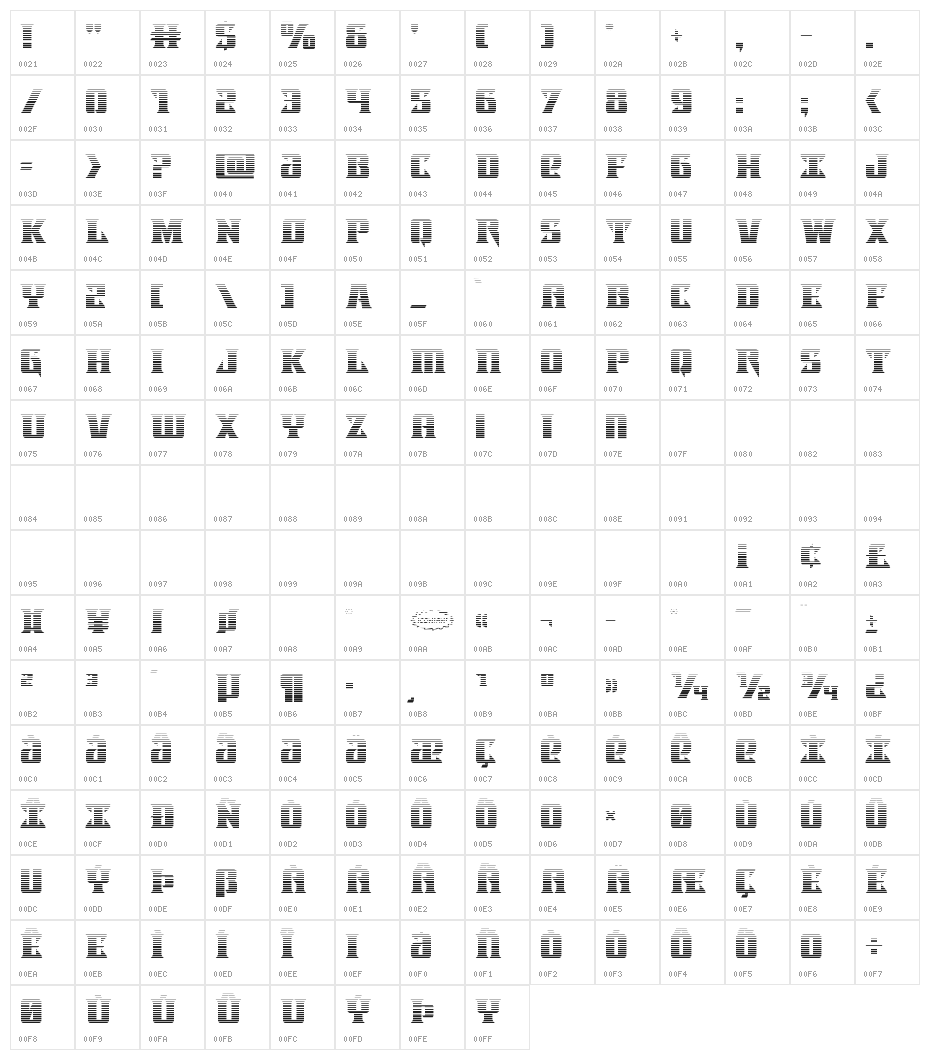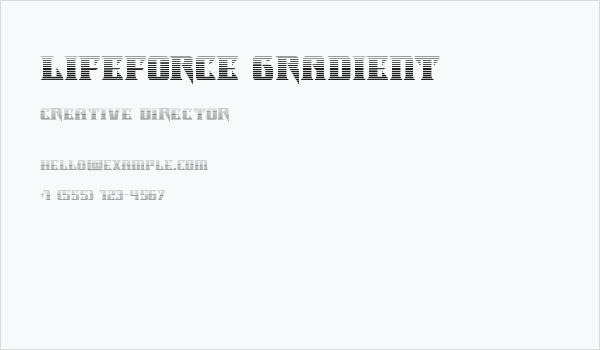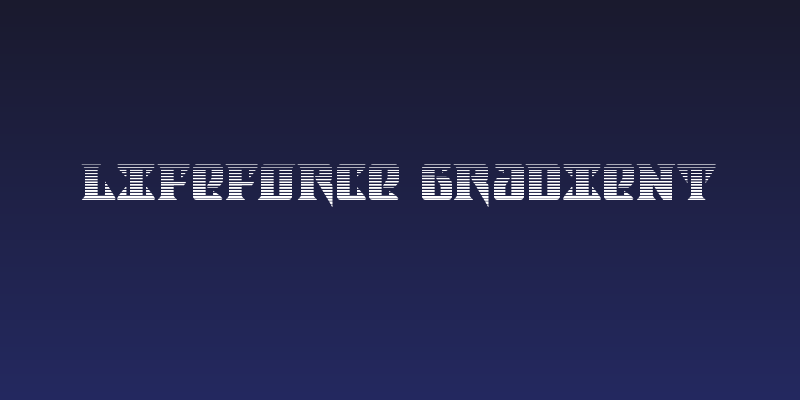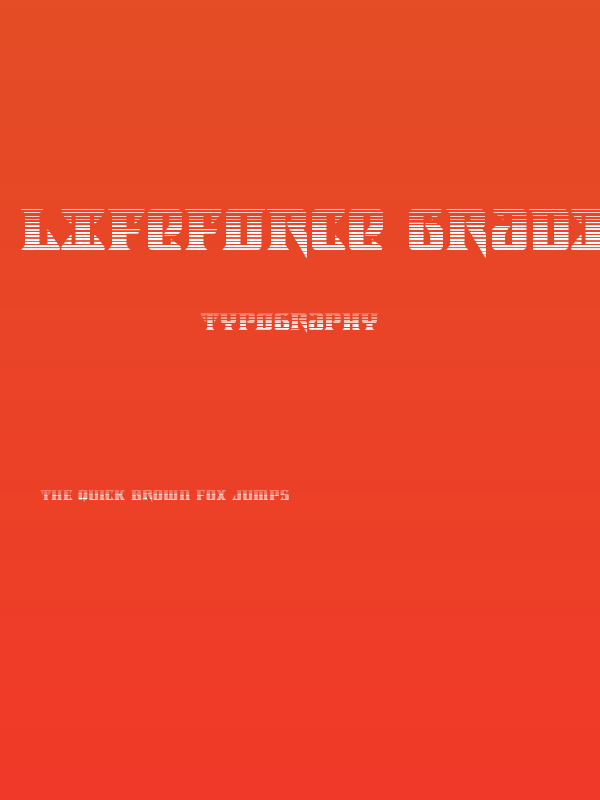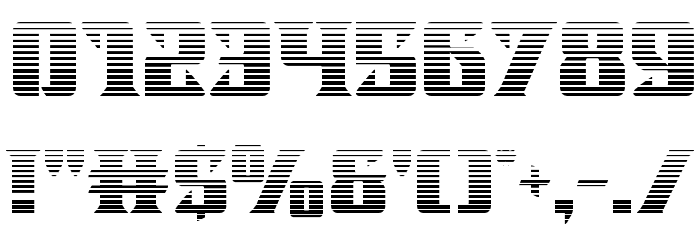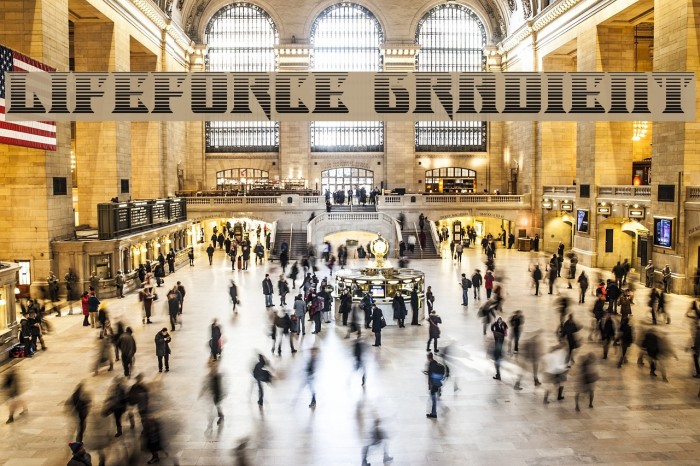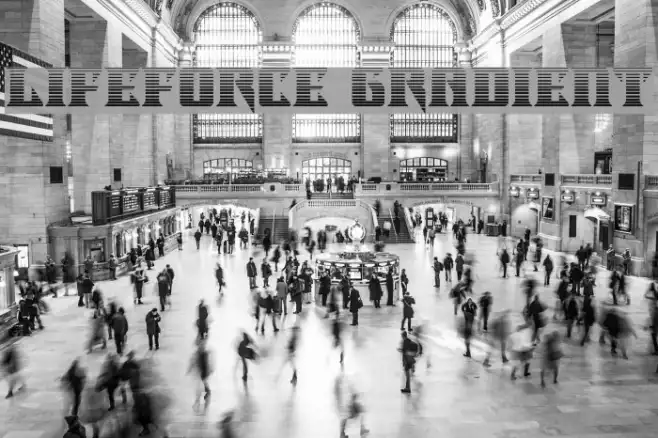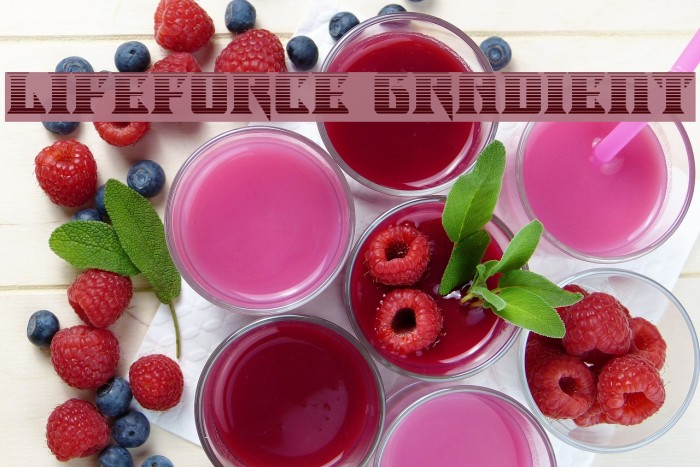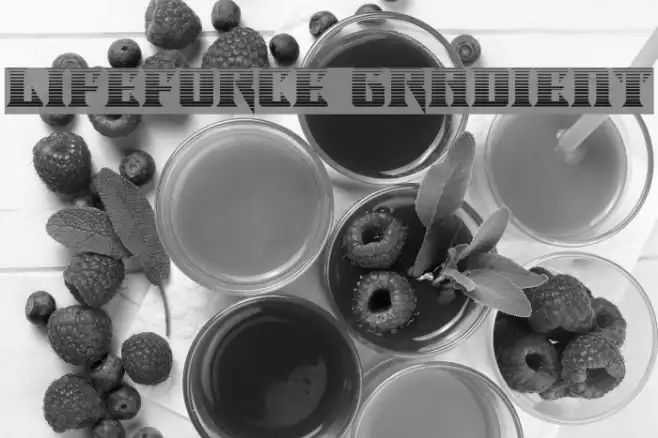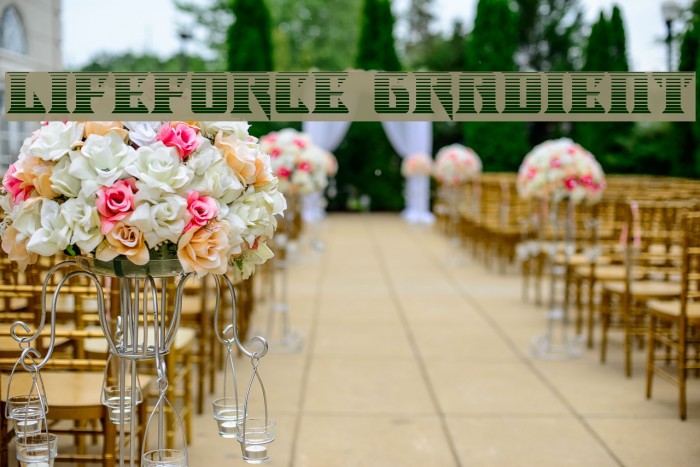
Lifeforce Gradient Font
Lifeforce Gradient Description
This font features a bold, futuristic design with a distinctive striped pattern running horizontally through each character. The uppercase and lowercase letters maintain a consistent width, creating a uniform appearance. The geometric shapes and sharp angles give it a modern and edgy feel, while the striped effect adds a sense of movement and dynamism. The numbers and special characters follow the same design principles, ensuring a cohesive look across all elements. This font's unique style makes it stand out, making it ideal for projects that require a strong visual impact.
| Proposed Projects | Ideal for sci-fi themed designs, video game titles, posters, and branding that requires a modern and dynamic look. |